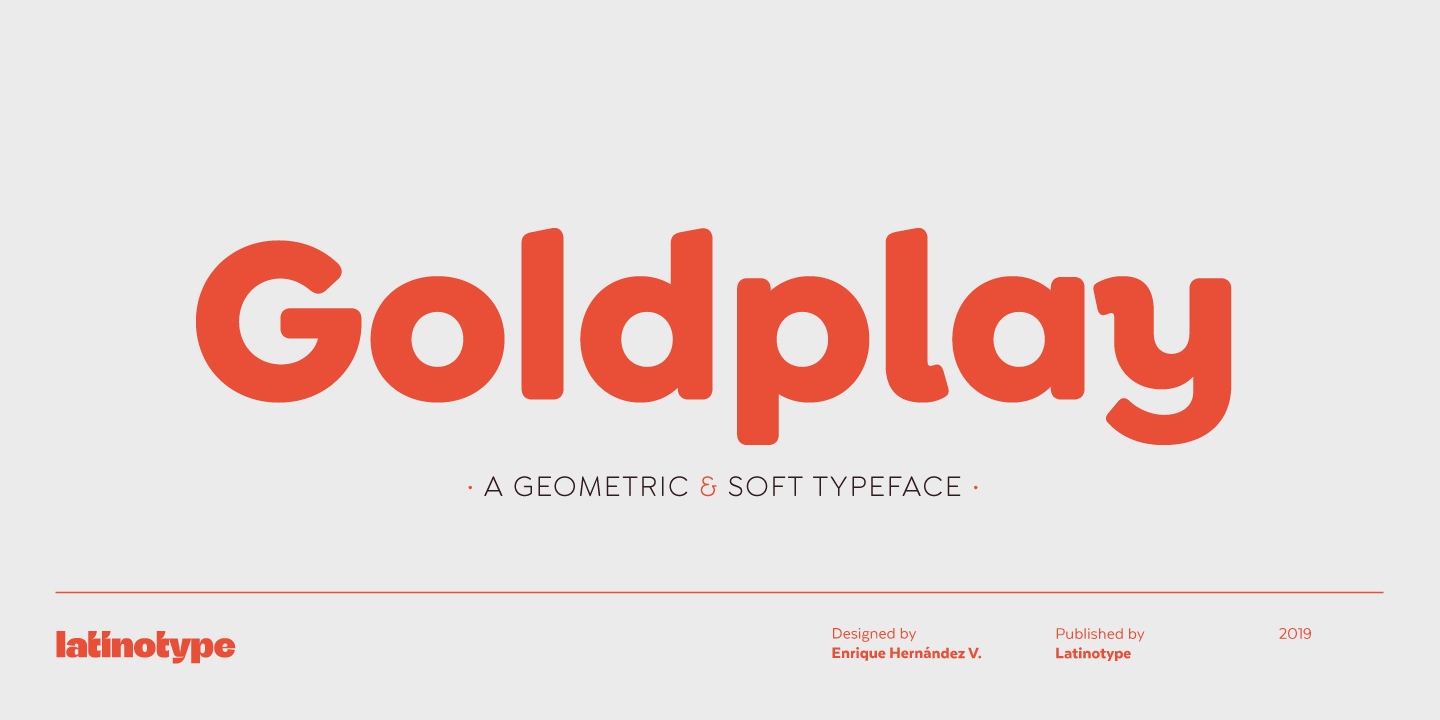
Goldplay Font
Goldplay Font is perfect for luxury gaming branding, premium entertainment platforms, high-end casino communications, exclusive gaming tournaments, VIP player programs, golden anniversary celebrations, affluent lifestyle marketing, and prestigious advertising campaigns. This opulent typeface works magnificently in both digital applications and print media where gaming luxury and golden excellence are essential design elements.
What makes Goldplay Font so exciting is its masterful interpretation of premium gaming culture through lustrous letterforms that seem crafted from the same precious materials and winning spirit that define the most exclusive gaming experiences and luxury entertainment venues. The font features golden characters with premium proportions, luxurious curves, and winning details that communicate high-stakes excitement, VIP treatment, and the golden standard of entertainment excellence. Its prestigious personality and gaming heritage make it ideal for premium entertainment brands seeking to attract affluent players while communicating luxury, exclusivity, and the golden promise of exceptional gaming experiences.
The Goldplay Font family includes multiple weight variations with different luxury intensities, along with golden alternates and premium ornamental elements. Each style maintains the typeface's opulent character while offering comprehensive character sets including prestigious numerals, VIP-focused punctuation marks, and special symbols designed to enhance luxury gaming communications and premium branding efforts across various exclusive contexts.
This extraordinary typeface represents the perfect fusion of gaming excitement and luxury design for premium entertainment and hospitality industries. Whether you're developing high-end casino identities, creating exclusive gaming platform materials, or designing VIP tournament promotions, Goldplay Font Free Download delivers the golden prestige and versatility needed to captivate affluent gaming audiences. The font's luxury gaming appeal makes it particularly effective for premium casinos, exclusive gaming platforms, luxury entertainment venues, and businesses targeting high-value customers who expect the golden standard of gaming excellence.
The meticulously crafted golden details and optimized luxury performance in Goldplay Font ensure both prestigious authenticity and clear communication across all premium gaming applications. Its opulent presence makes it perfect for luxury gaming branding, premium entertainment marketing materials, and exclusive communications where its full golden character can create unforgettable impressions and establish immediate association with winning, luxury, and the ultimate in premium gaming experiences.